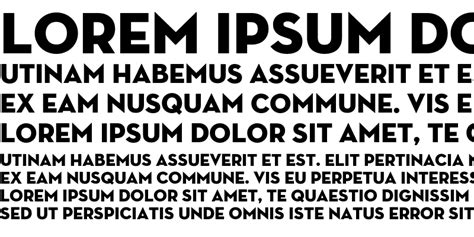
Neutra Display Font. Web neutra display font is a type of lettering that features a futuristic design inspired by advanced technology. This font reflects the digital era and technological advancements, bringing a sense of.
Web neutra display font is a type of lettering that features a futuristic design inspired by advanced technology. This font reflects the digital era and technological advancements, bringing a sense of. Web download neutra display for free, view sample text, rating and more on fontsgeek.com. It is popular because of its global acceptance for any web, blog, or magazine.
This font reflects the digital era and technological advancements, bringing a sense of. Web neutra display font is a type of lettering that features a futuristic design inspired by advanced technology. Web download neutra display for free, view sample text, rating and more on fontsgeek.com. This font reflects the digital era and technological advancements, bringing a sense of. It is popular because of its global acceptance for any web, blog, or magazine.